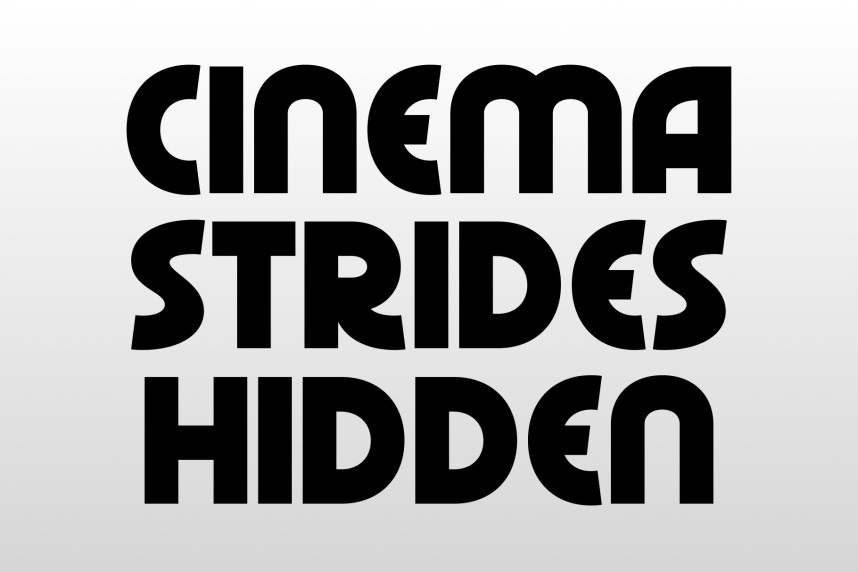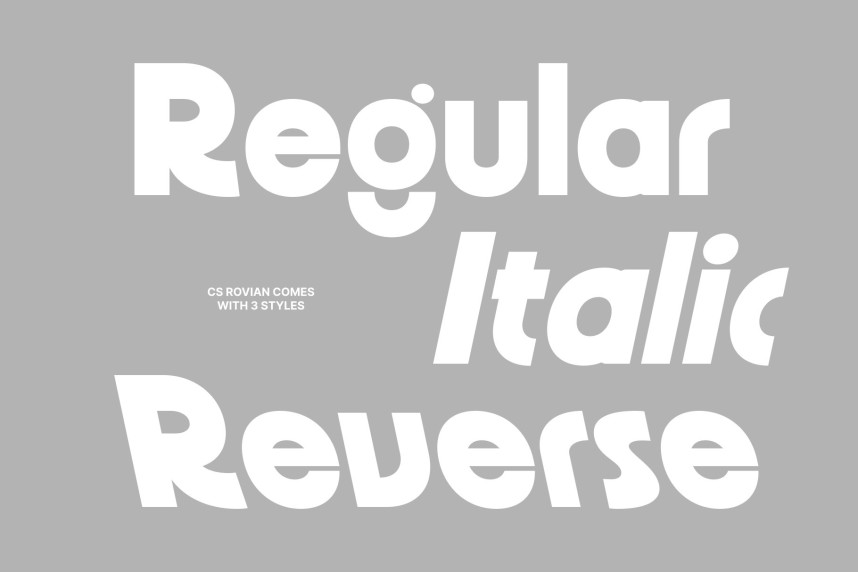
CS Rovian Font
CS Rovian Font – Modern Sans Serif with Geometric Techno Playfulness Modern Sans Serif with Bold Geometric Style. This is a modern sans serif font built around bold geometric forms and a strong techno influence. Its confident structure and clean construction create a powerful visual foundation, while playful details inject personality and energy into every character. The result is a typeface that feels cool, expressive, and unmistakably contemporary.